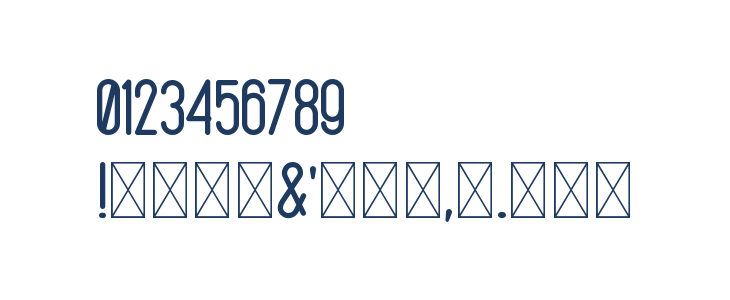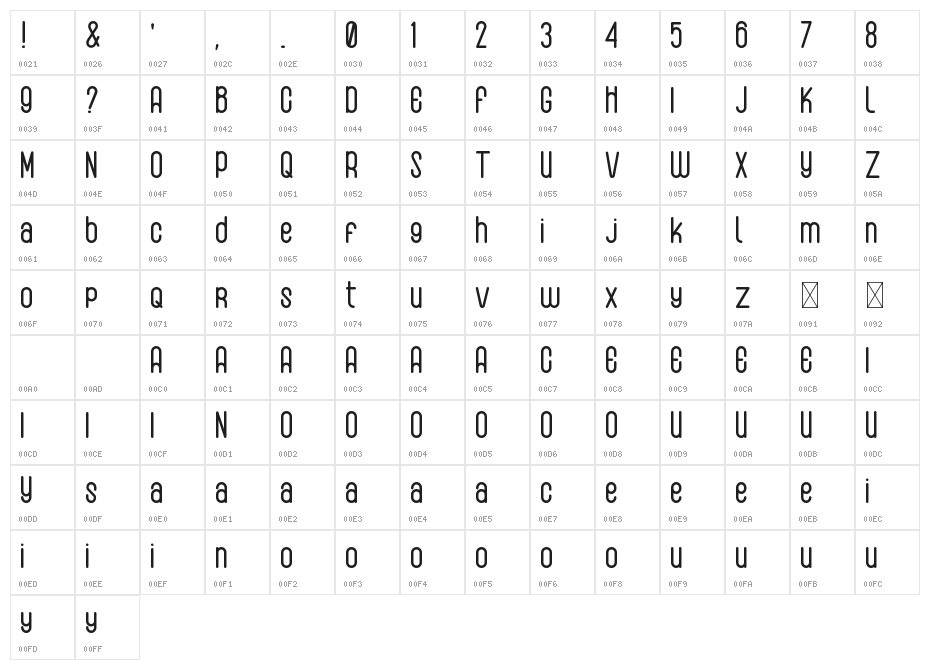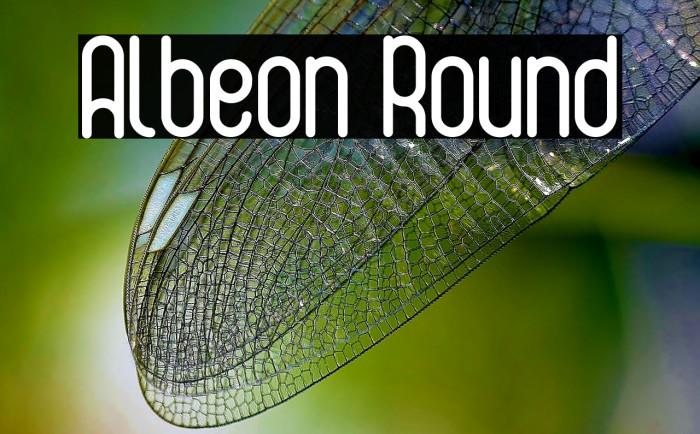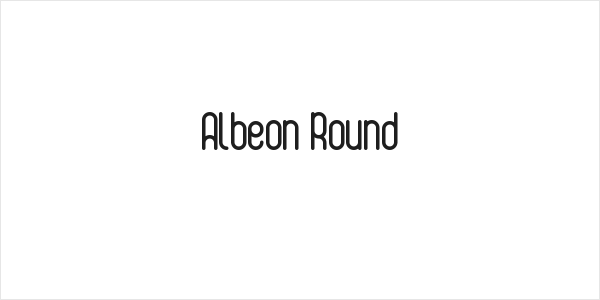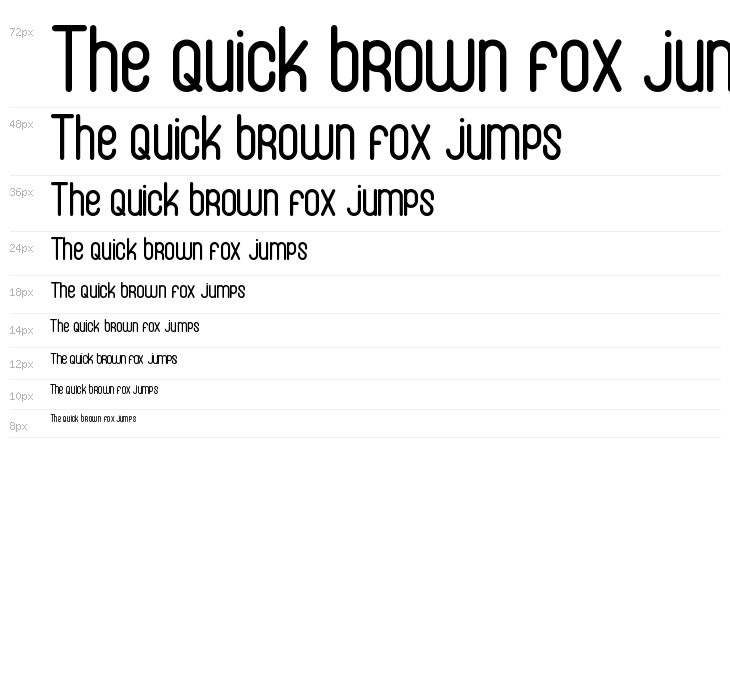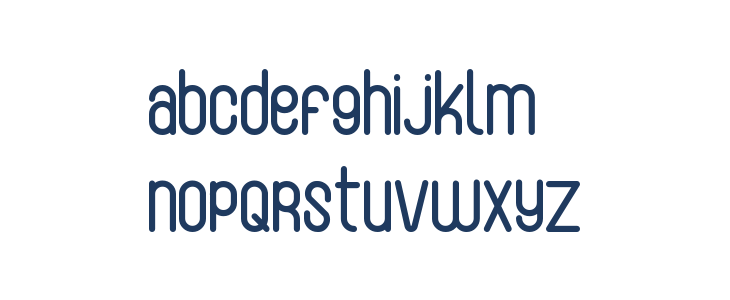
Albeon Round Font
Albeon Round Description
This typeface features a rounded, modern design with clean lines and a friendly appearance. The characters are uniformly structured, providing a harmonious and balanced look. The uppercase and lowercase letters maintain a consistent style, with rounded edges that soften the overall appearance. The numerals and special characters complement the alphabet with the same rounded aesthetic, ensuring a cohesive look across all text elements. This font's simplicity and clarity make it versatile for various design applications, offering readability and a contemporary feel.